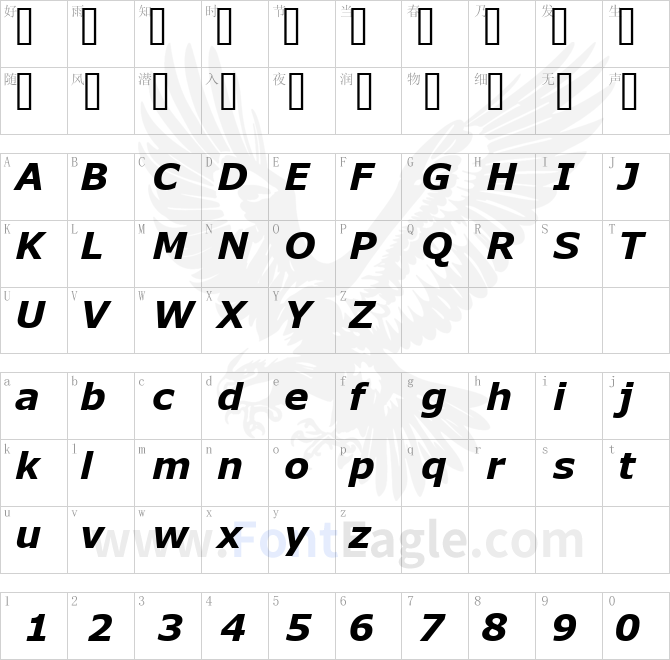
TrSah Verdana Bold Italic.ttf Font Image
TrSah Verdana Bold Italic.ttf Base Font Information
- Font name:TrSah Verdana
- Font Subfamily: Bold Italic
- Font Subfamily ID:Microsoft:Verdana Bold Italic:Version 1 (Microsoft)
- Font Full Name:TrSah Verdana Bold Italic
- Font Version:Version 1¼
- Postscript:TrSahVerdanaBoldItalic
TrSah Verdana Bold Italic.ttf Characters Sample